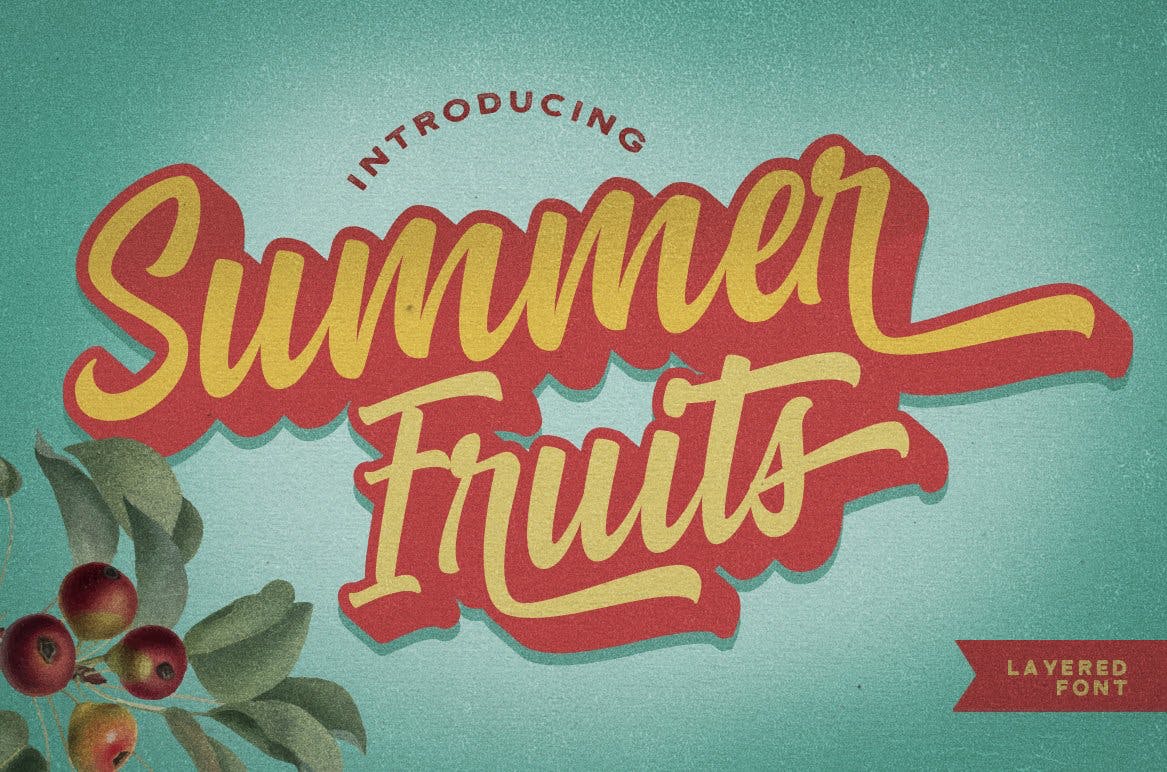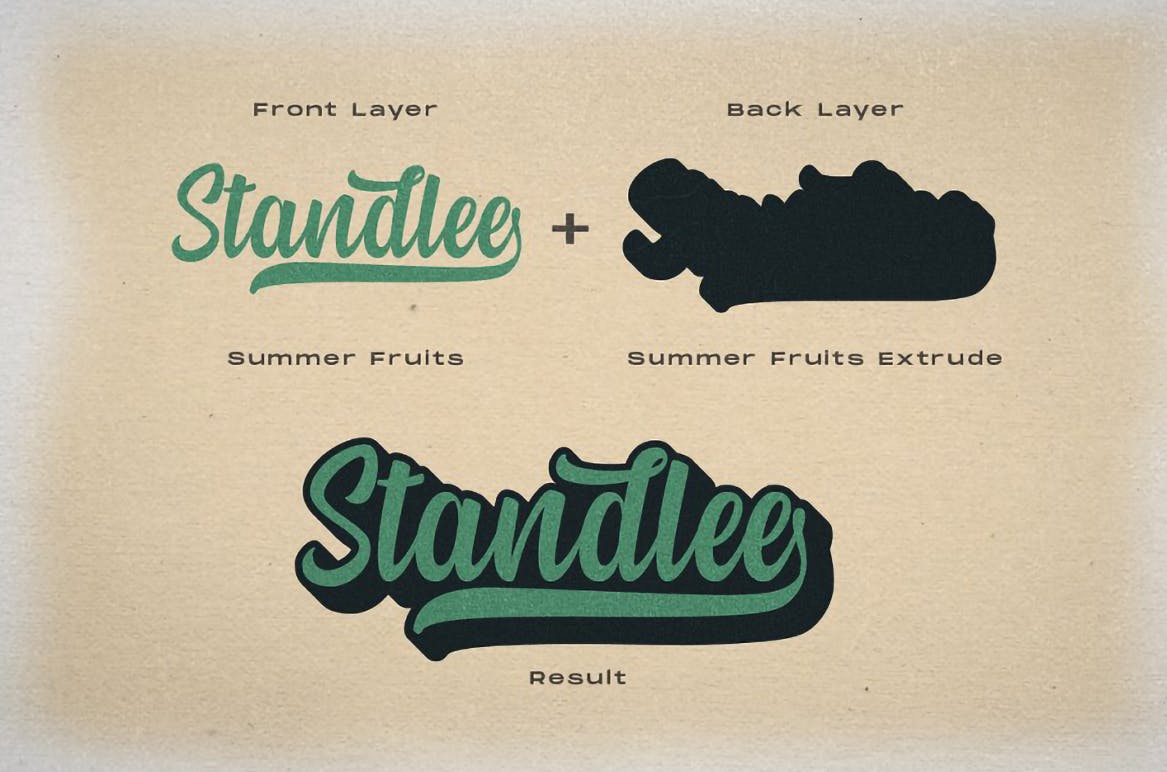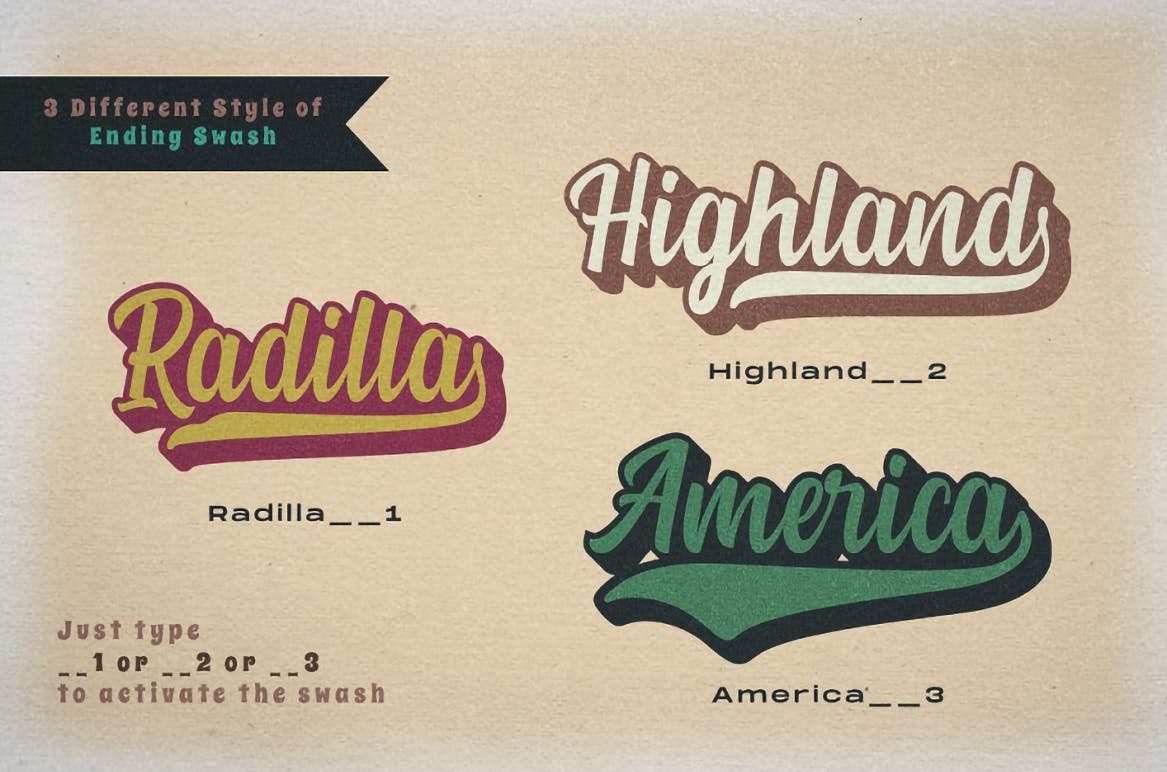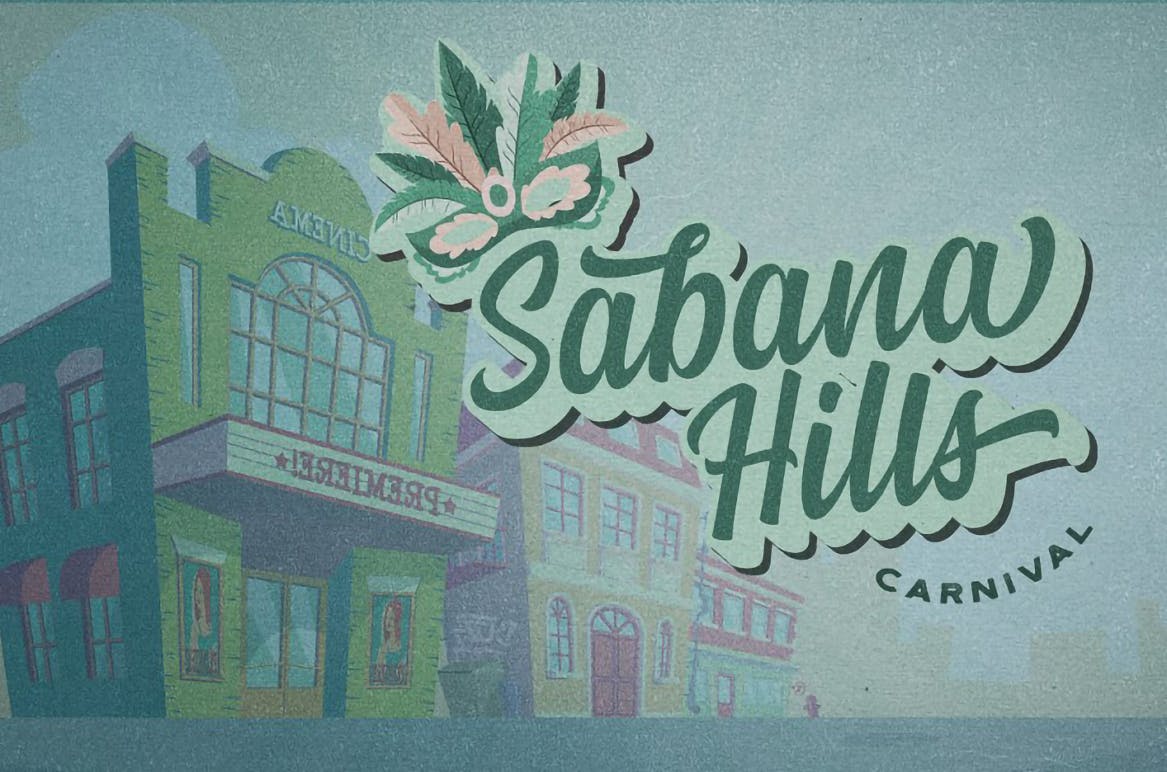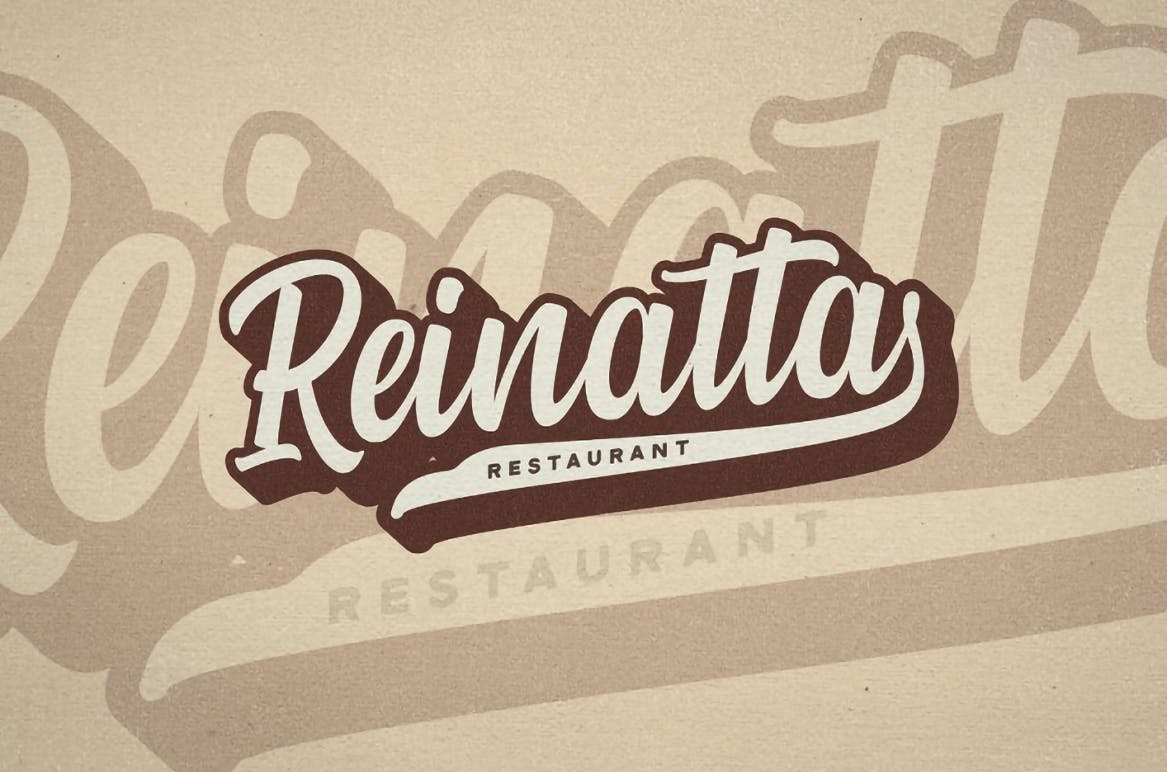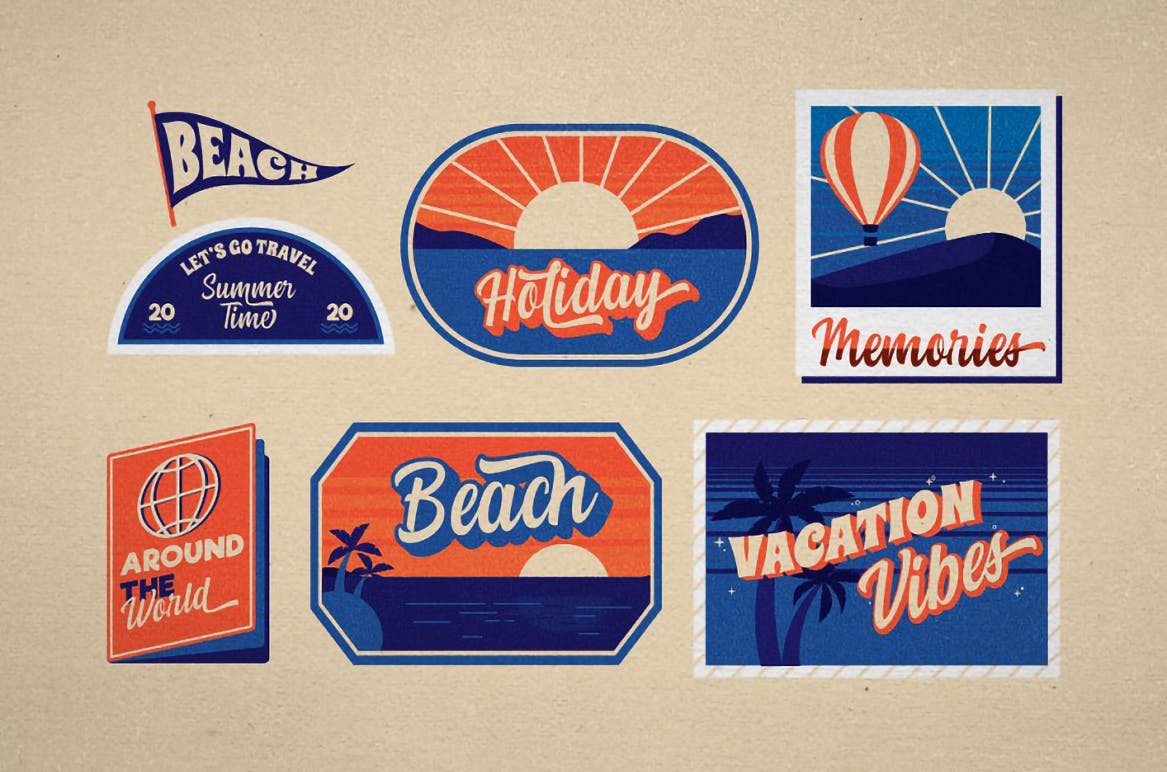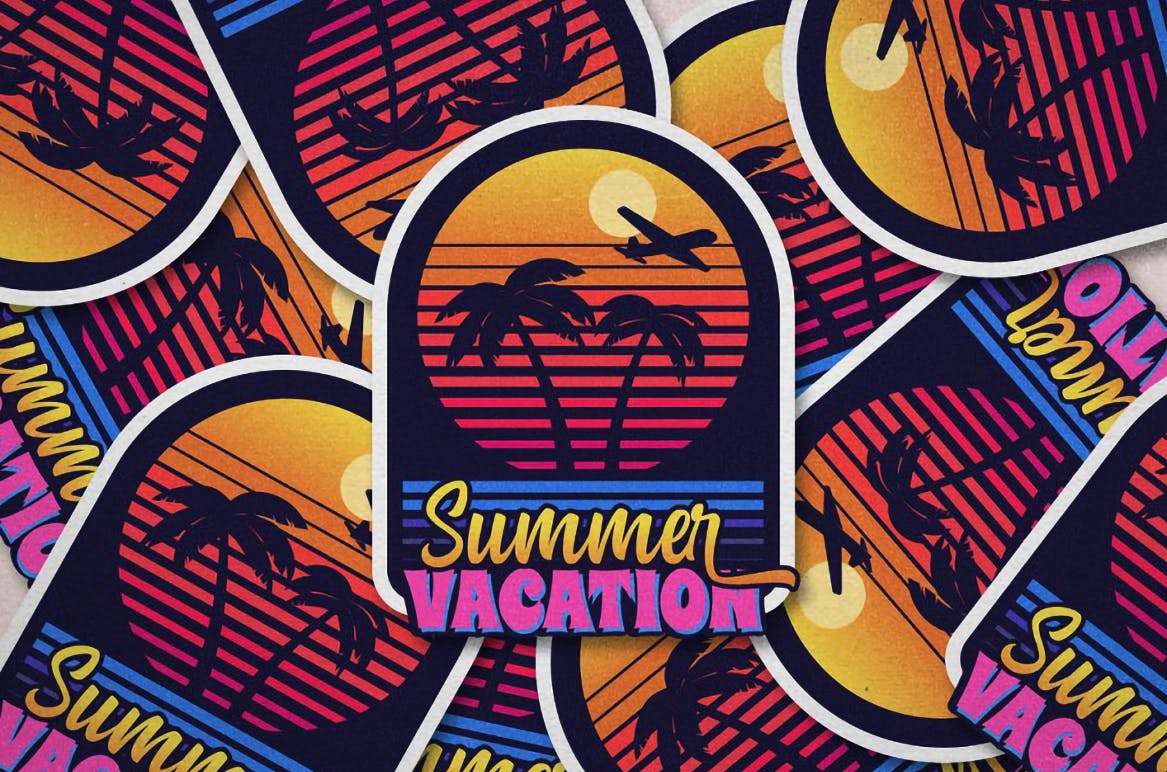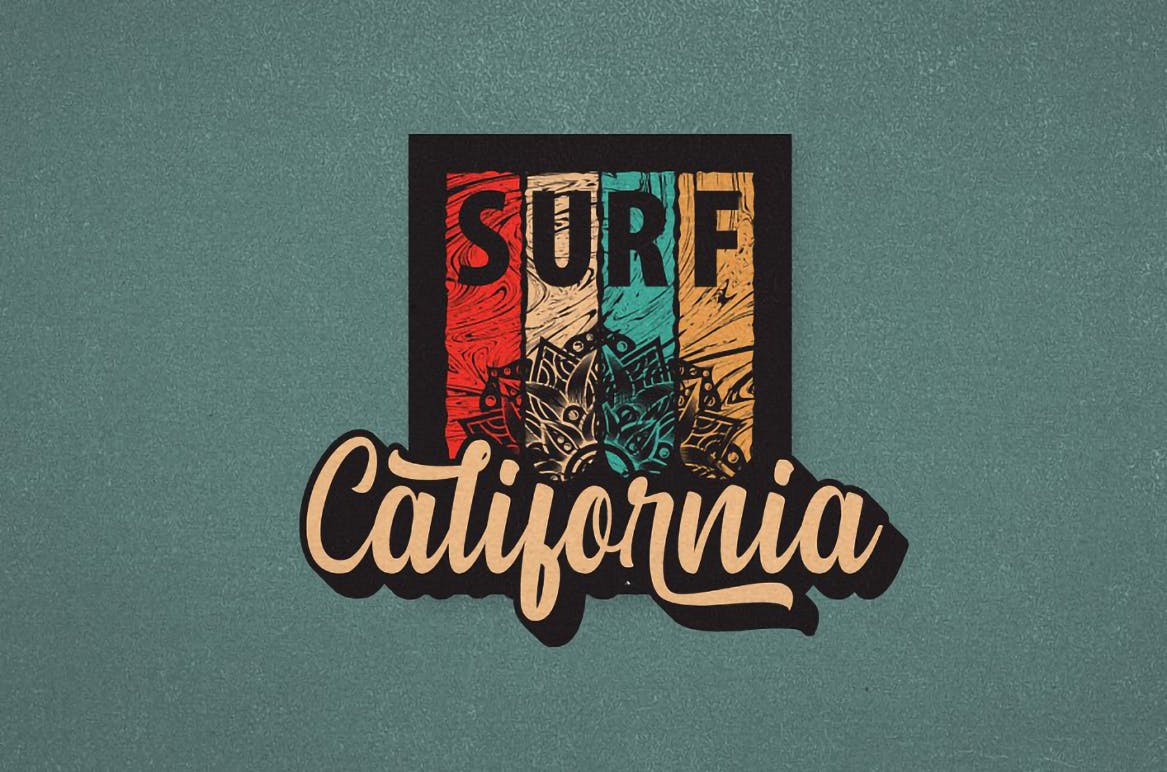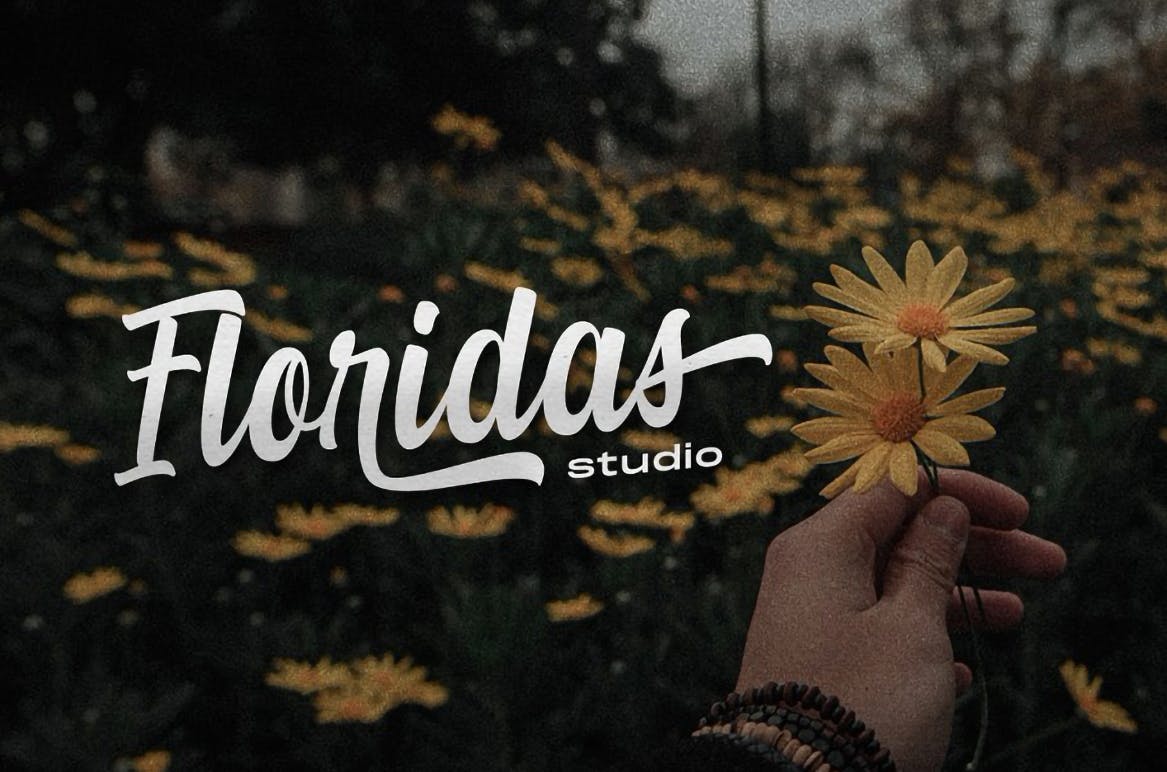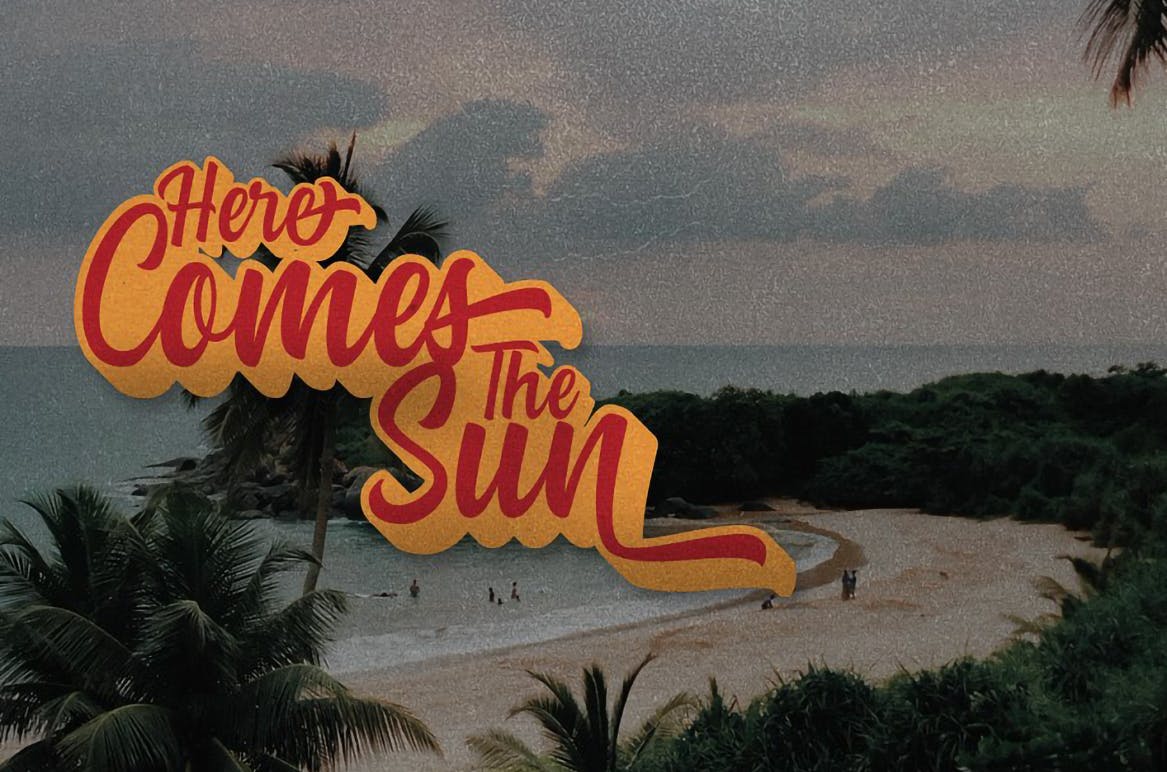
Free Summer Fruits Logo Font
Hi everyone! We have a new freebie from our favorite type-designer which is Free Summer Fruits Logo Font. It is a very good looking font that will help you to make your design perfect. This font is suitable for holidays or summer moments such as beach banner, beach bar menu, logos, and much more. So, make your business branding for the right way by using this font as the character of your business. However, this demo font is only allowed for a personal use license, but, donโ€™t worry you can get more features by making a purchase for it.